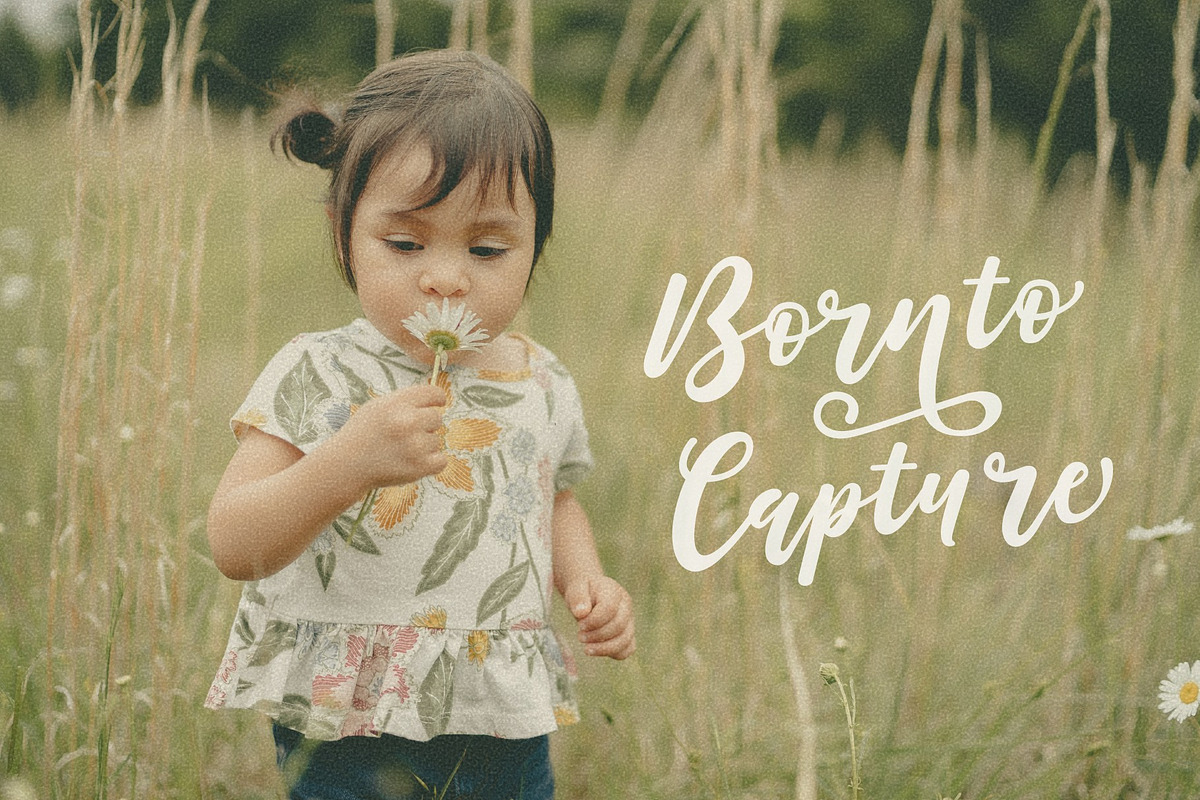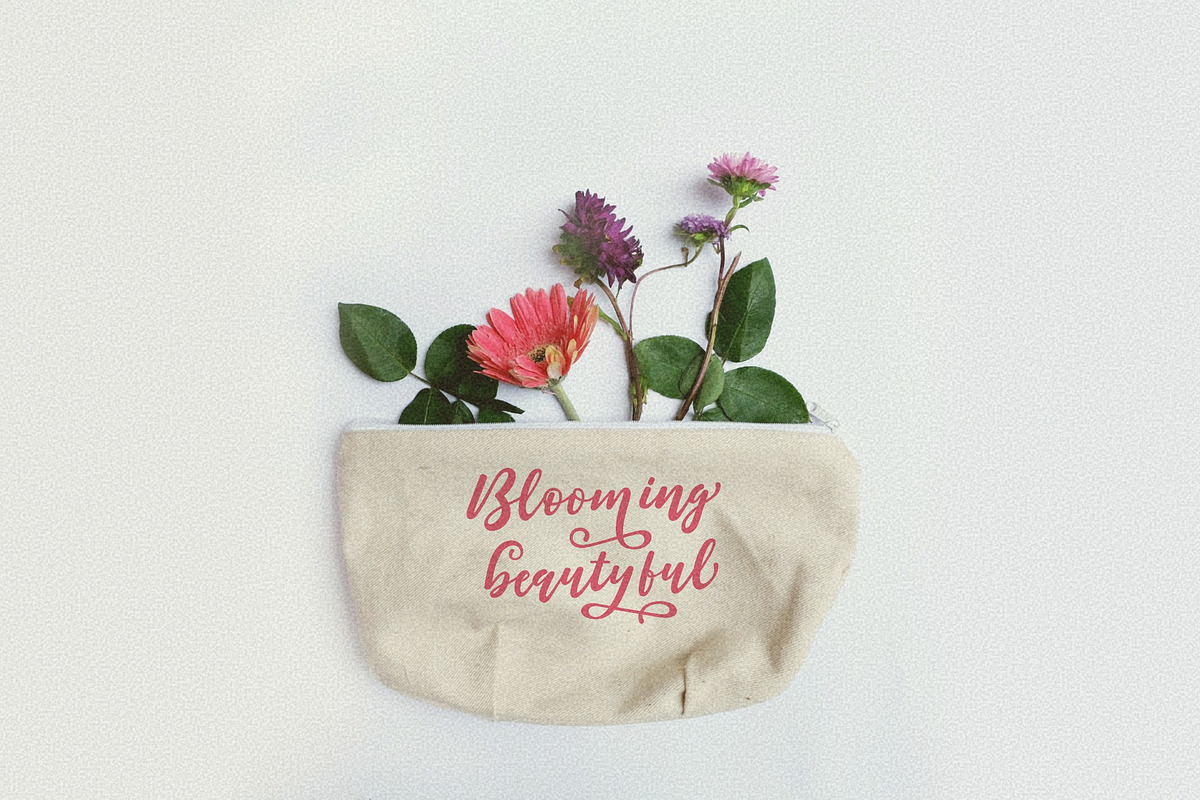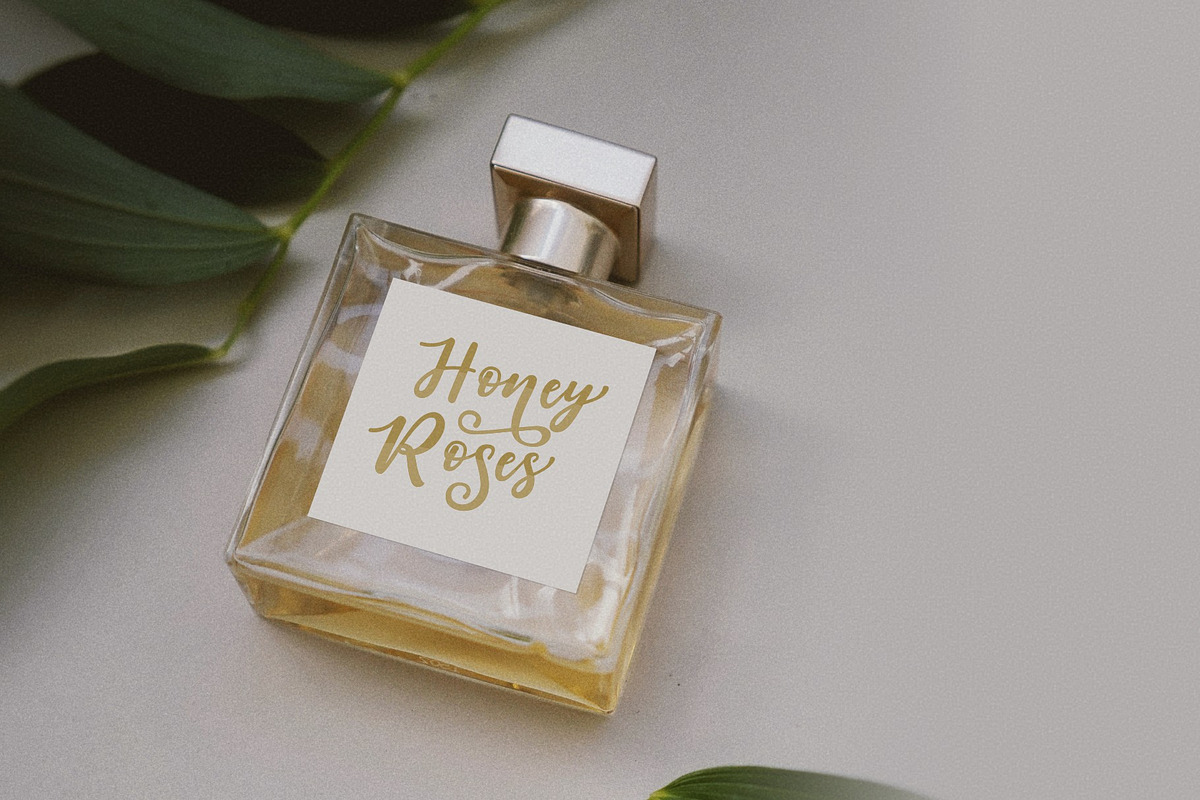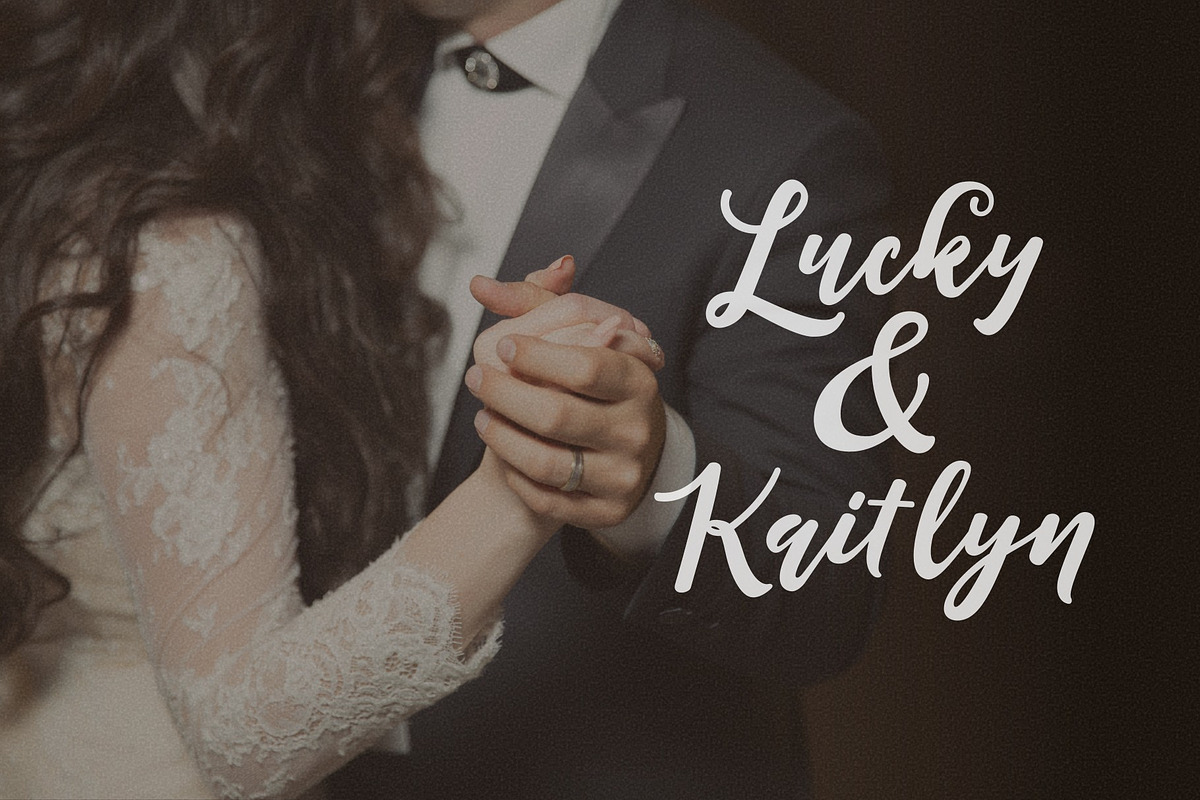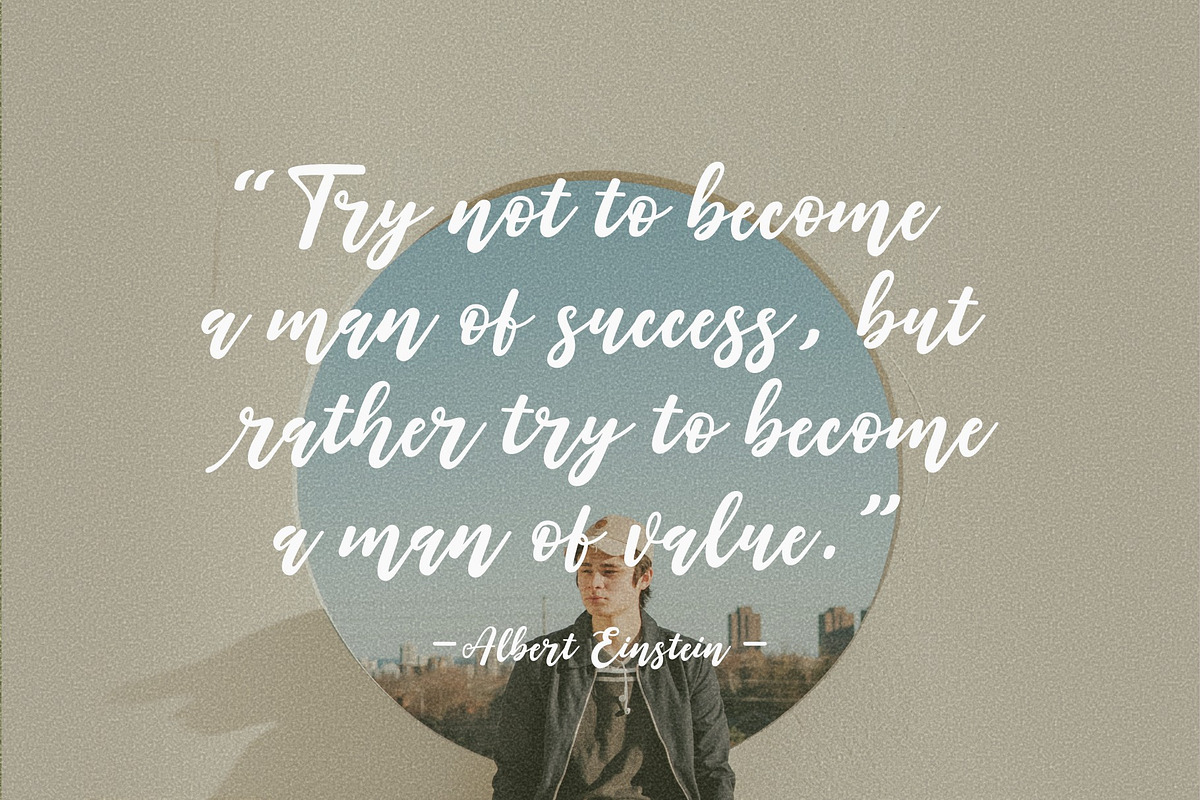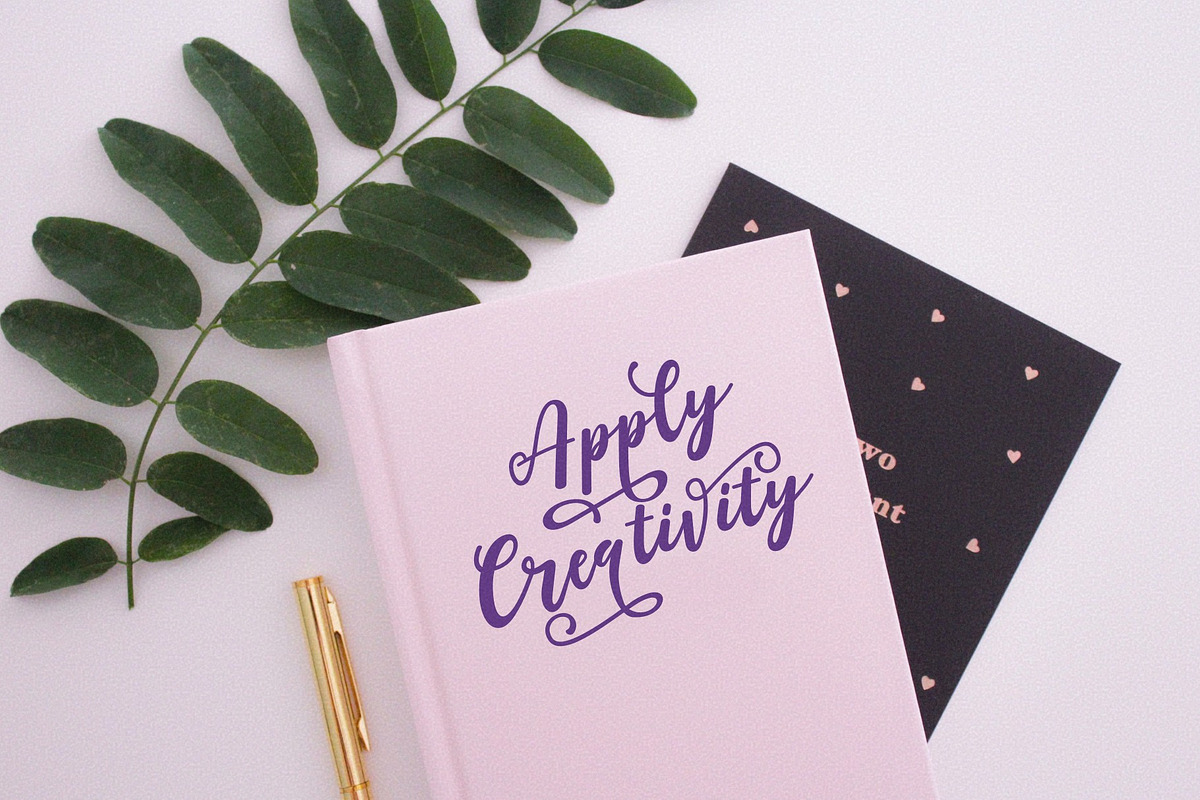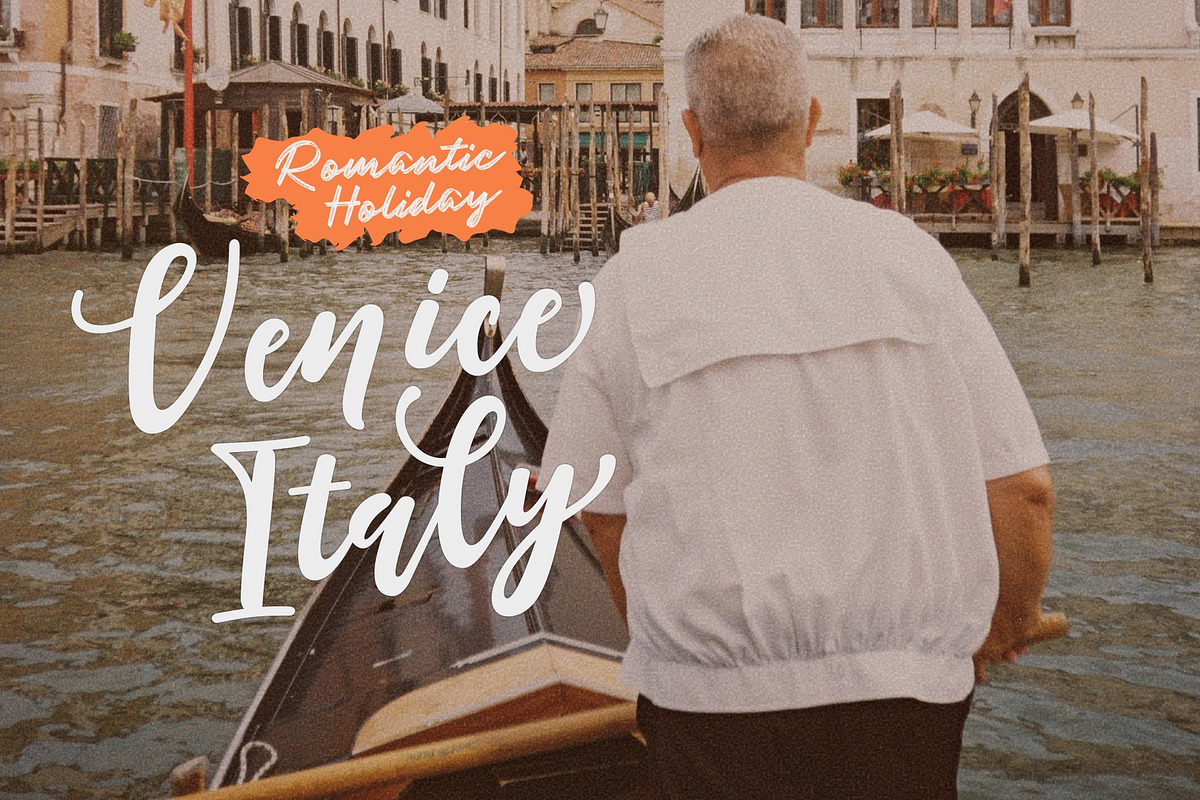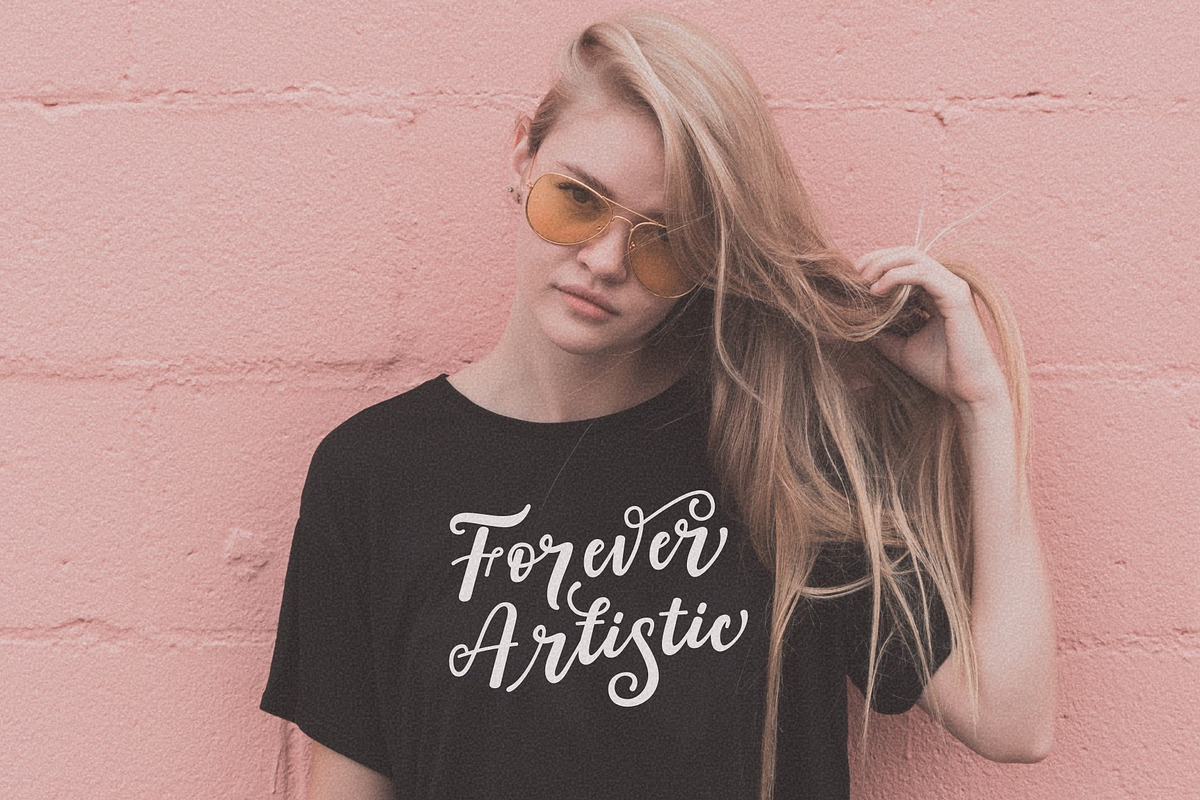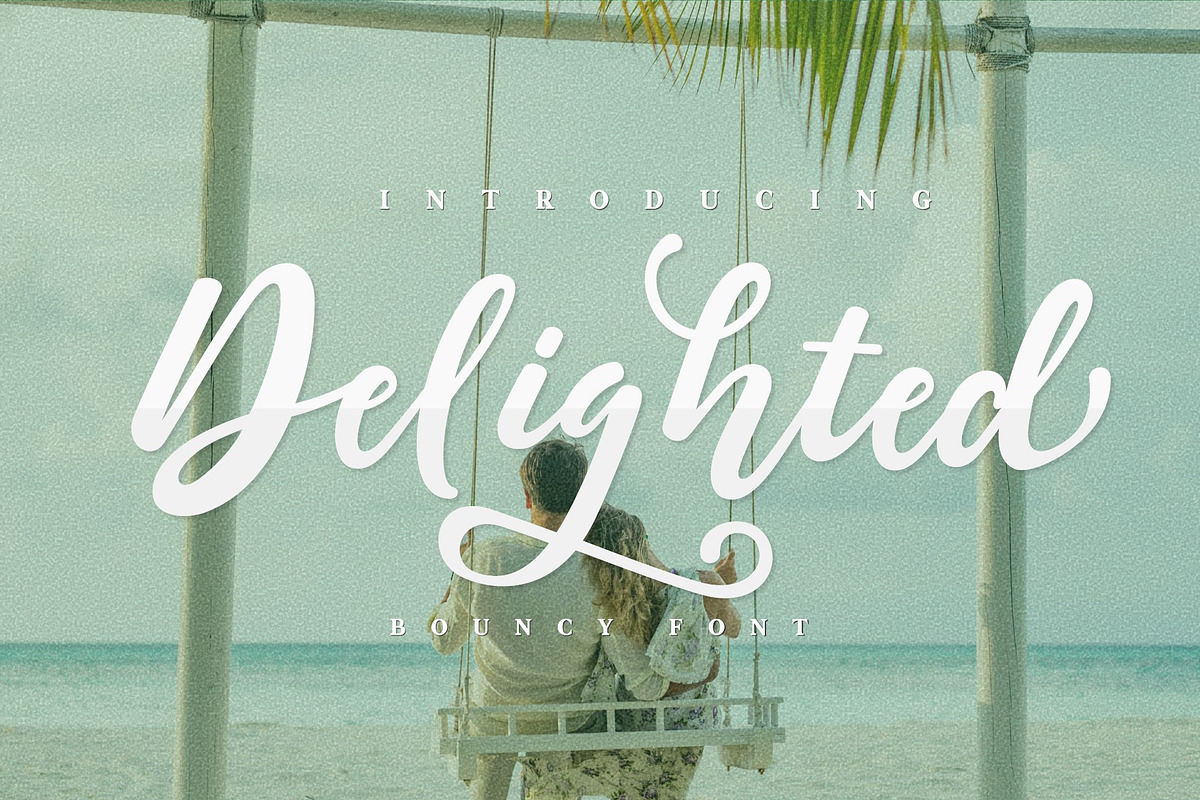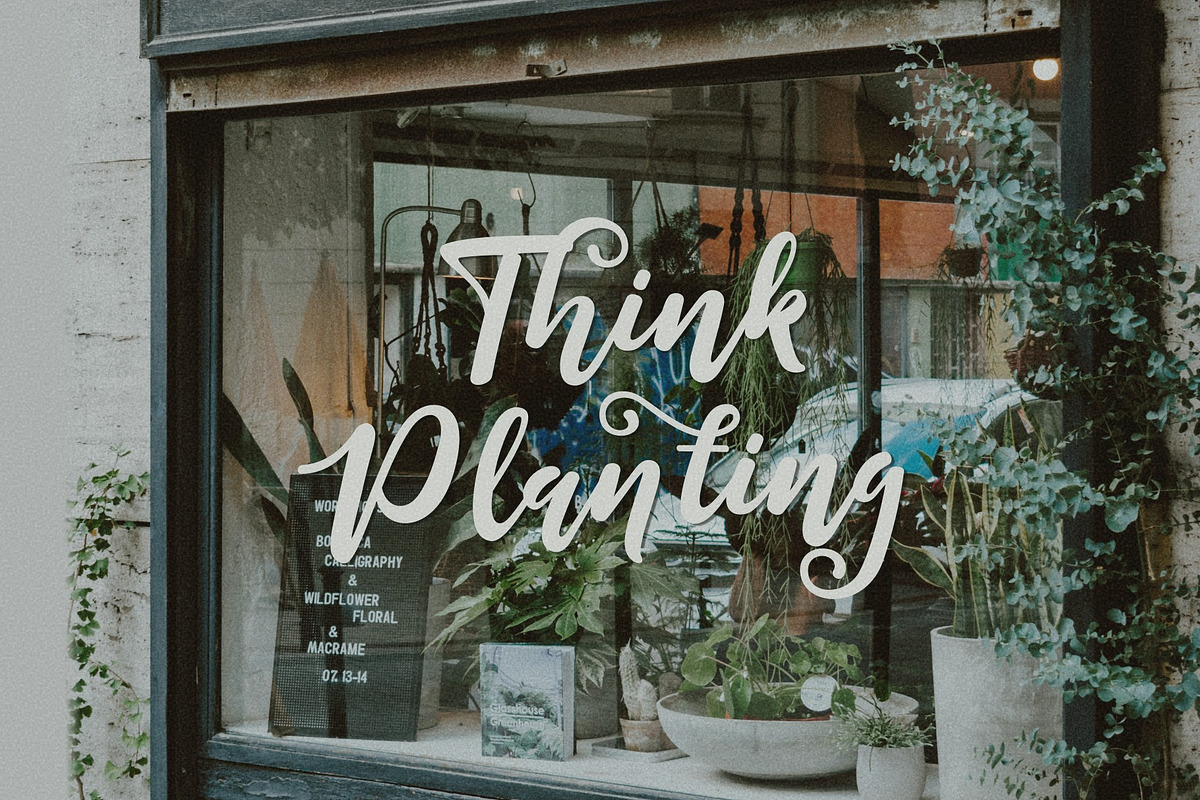
Delighted bounchy font
Proudly present a pretty bouncy font called Delighted. As the name suggests, this font will make your project more enjoyable because it will make your project more beautiful and stand out. Delighted font comes with several alternates, so you can switch on for the alternate, stylistic alternate, and terminal form. This font is perfect for logo font, branding, greeting cards, cut files for quotes, silhouette font design, monogram font, and etc.